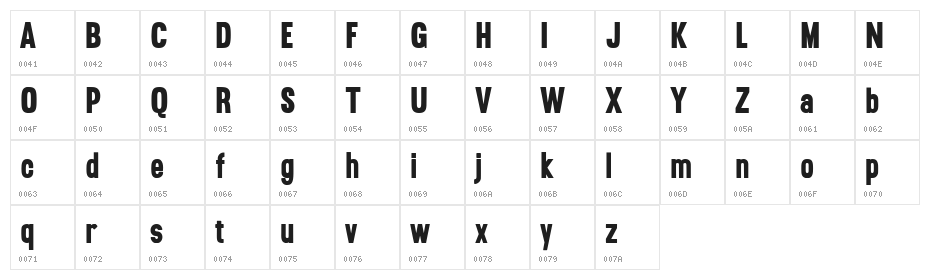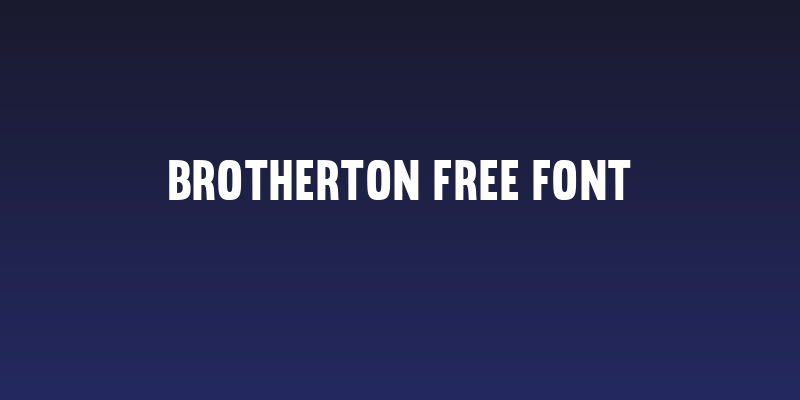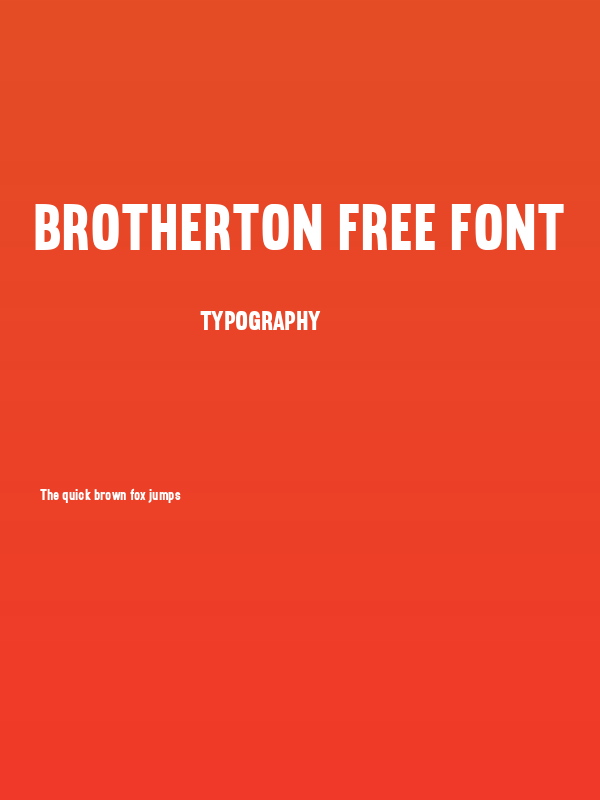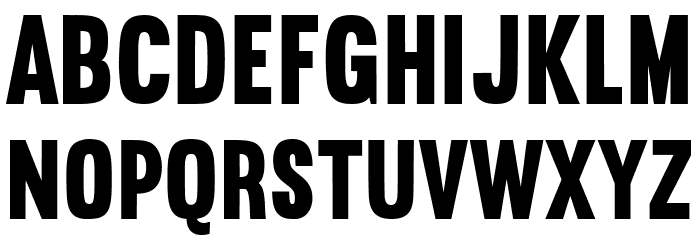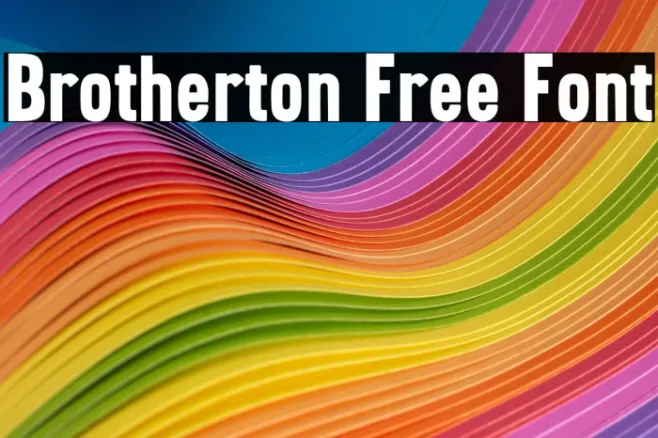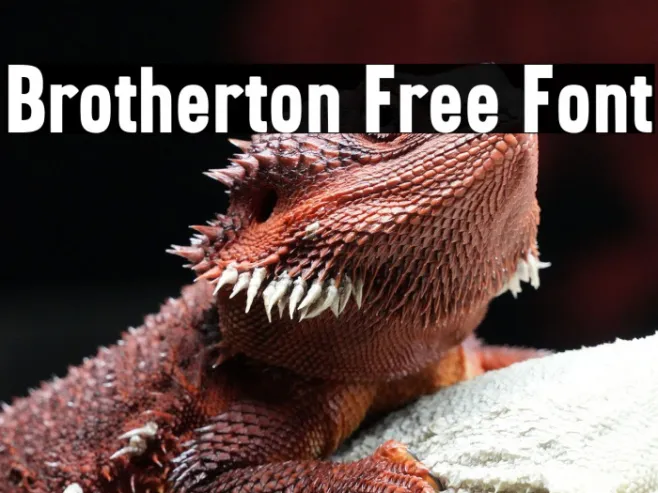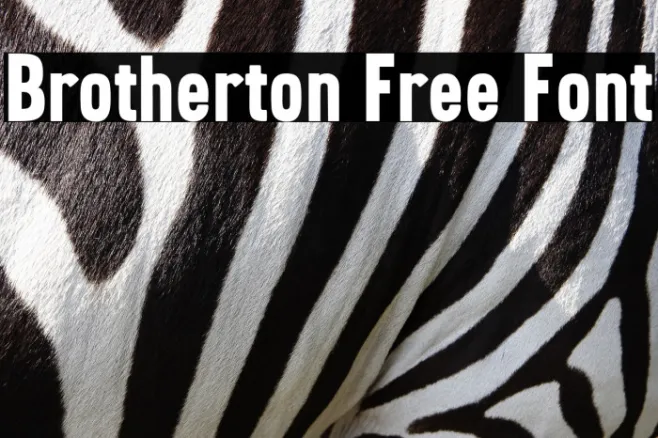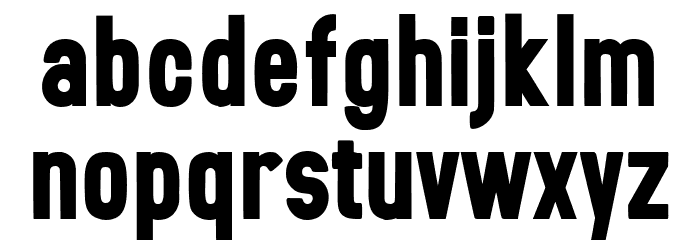
Brotherton Free Font Description
This font features bold, strong characters with a modern and impactful design. The uppercase and lowercase letters are well-proportioned, offering a sense of balance and readability. The strokes are consistent in width, providing a uniform appearance across all characters. The font's design is straightforward, making it suitable for a variety of applications where clarity and emphasis are needed. Its bold nature ensures that it stands out, making it ideal for headlines and attention-grabbing text.
| Proposed Projects | This font is perfect for use in advertising, poster design, branding, and any project requiring bold, attention-grabbing text. |